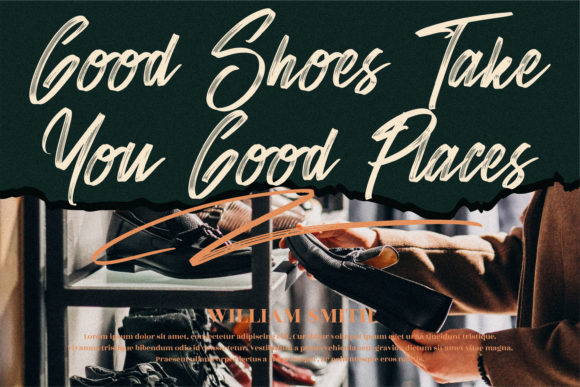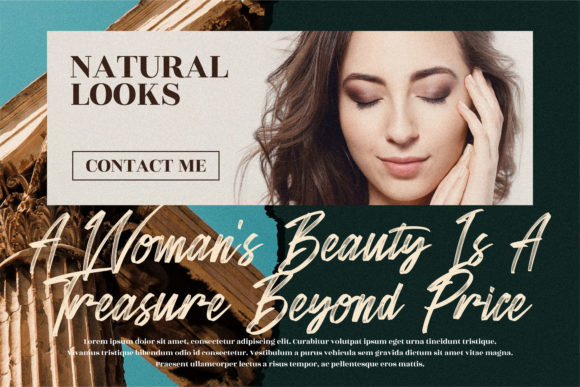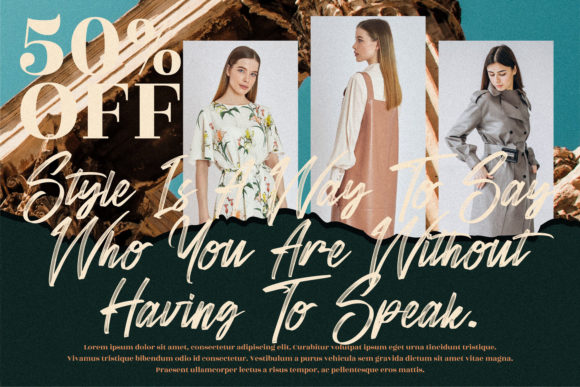
Introduction to Sandershon Font
Sandershon is a modern and bold brushed script font.
It looks beautiful on a variety of designs requiring a personalized style, such as wedding invitations, thank you cards, weddings, greeting cards, logos and so on This font is PUA encoded which means you can access all of the glyphs and swashes with ease.